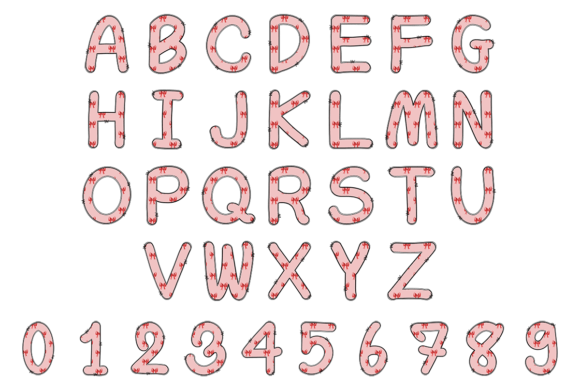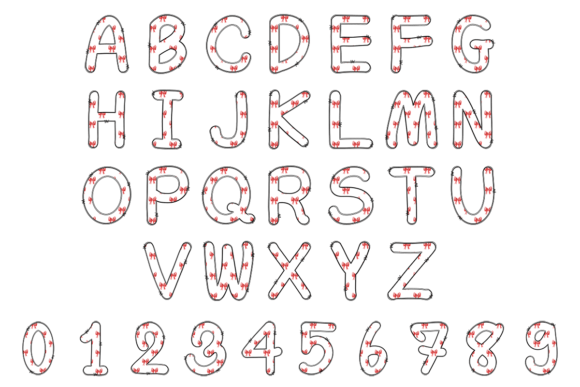
Introducing Bow Font: The Ultimate Christmas and New Year Celebration Companion
It’s that time of the year again when we all get to deck the halls, jingle those bells, and create stunning designs for Christmas and New Year. As a designer, I know how crucial it is to find the perfect font that captures the festive spirit. I still remember struggling to find the right font for a client’s Christmas card project. The usual fonts seemed too bland, and I wanted something that would make the card pop. That’s when I discovered the magic of Bow Font.
A Personal Design Moment: The Birth of Bow Font
I was working on a project, trying to meet a tight deadline, and my design just wasn’t coming together. My client wanted a font that was festive, fun, and playful. I scoured the internet, but nothing seemed quite right. That’s when I decided to create my own font, one that would be perfect for Christmas and New Year celebrations. And so, Bow Font was born.
What I Love About Bow Font ✨
- 🎄 Festive and fun: Bow Font is designed to bring the festive spirit to your designs, with a playful and cheerful vibe that’s perfect for Christmas and New Year.
- 🌈 Versatile: With Bow Font, your options are limitless. Use it for Christmas cards, New Year posters, or any other design project that needs a festive touch.
The Designer Inspiration Behind Bow Font
Bow Font was designed with love and care to bring a touch of festive magic to your designs. As a designer, I wanted to create a font that would be perfect for Christmas and New Year celebrations. I drew inspiration from traditional festive fonts, with a modern twist to make it fresh and exciting.
Q: What is Bow Font?
Bow Font is a color font (Opentype-SVG) designed for Christmas and New Year celebrations. It’s perfect for designers, crafters, and creative hobbyists who want to add a festive touch to their designs.